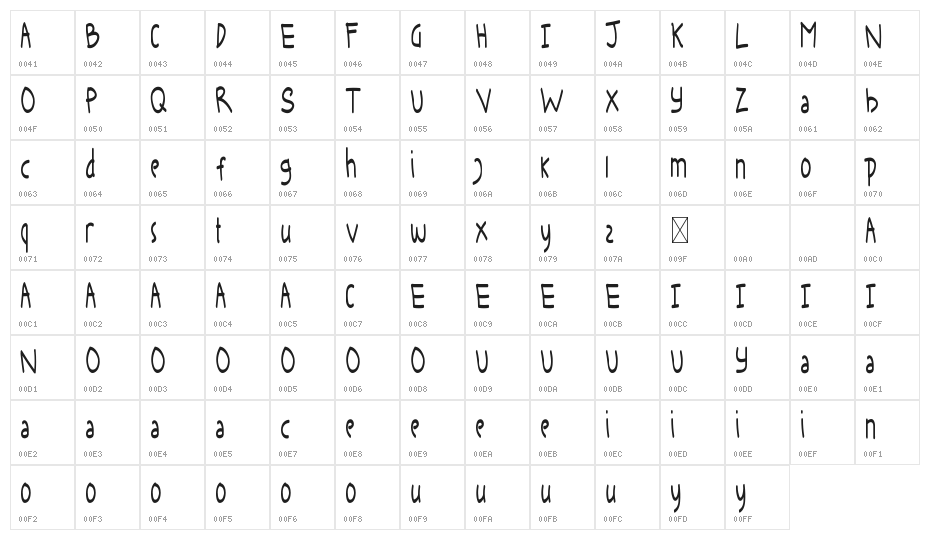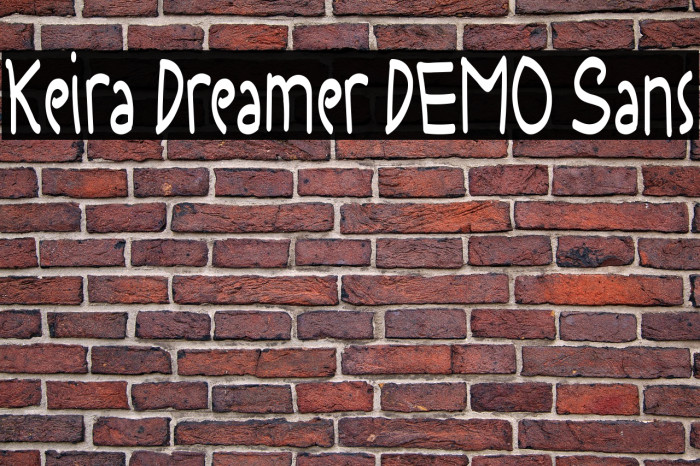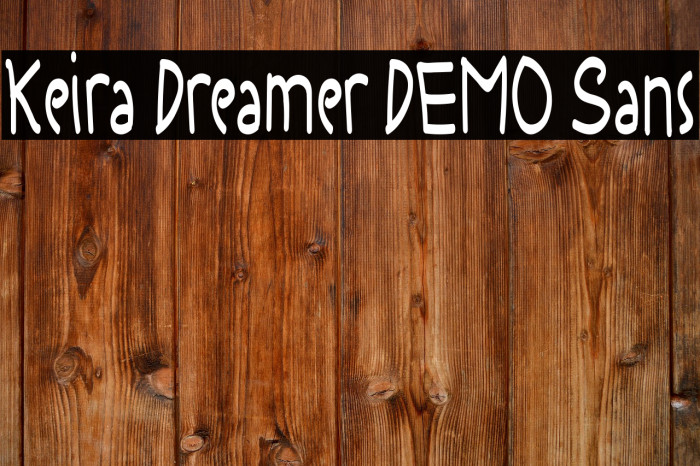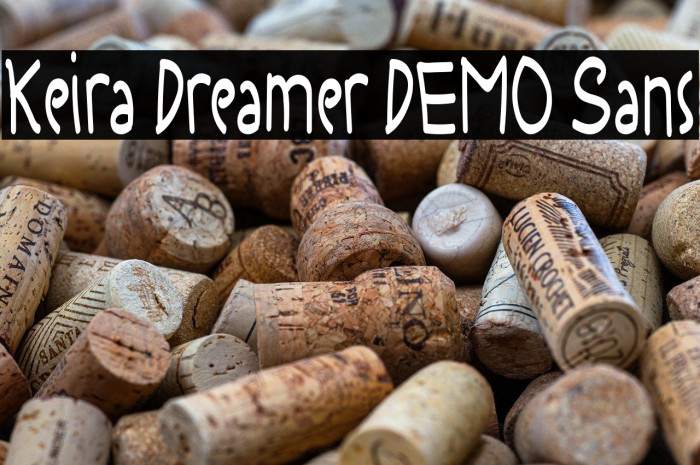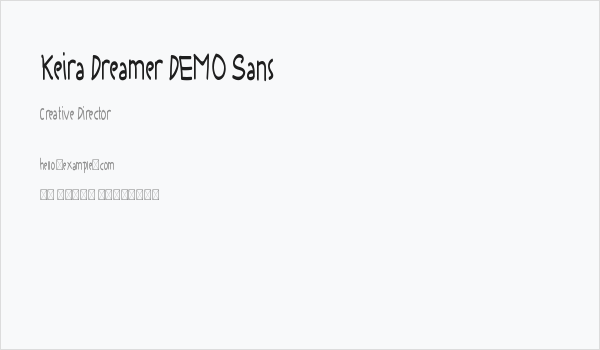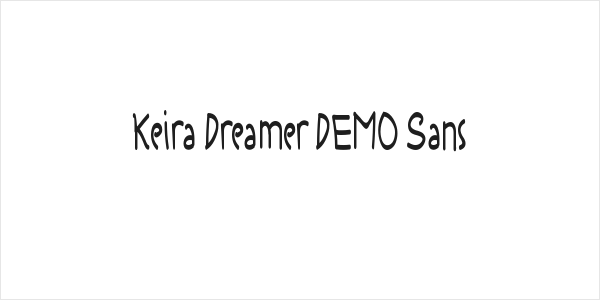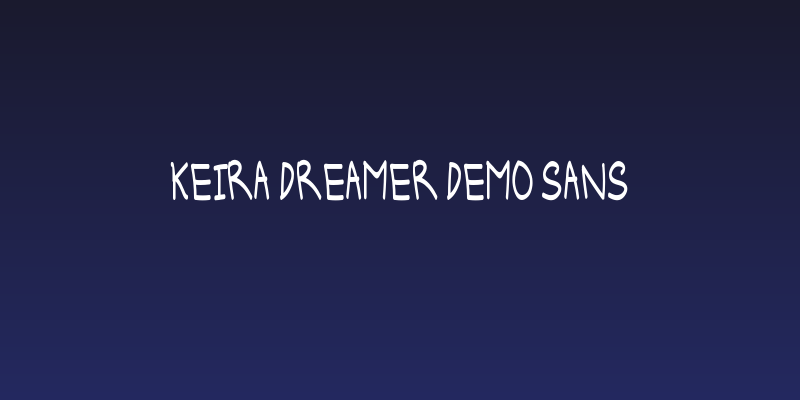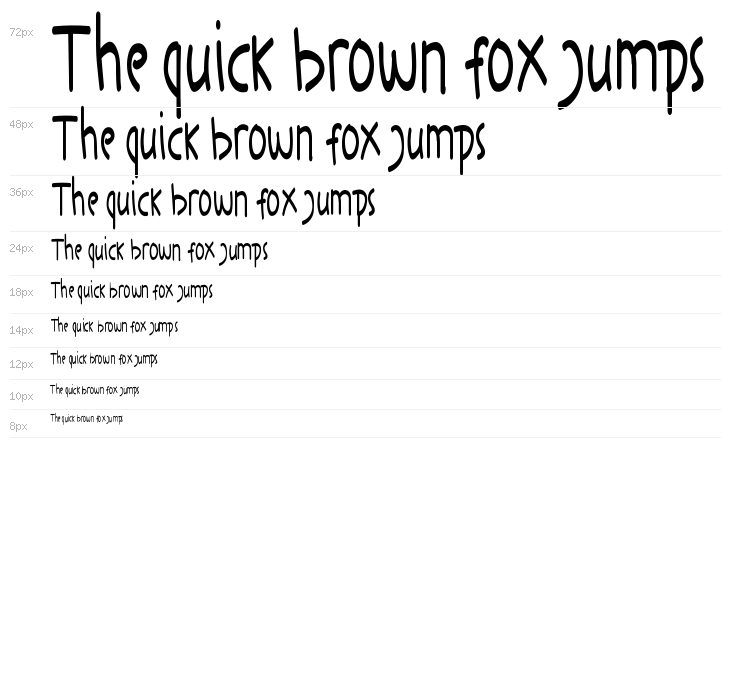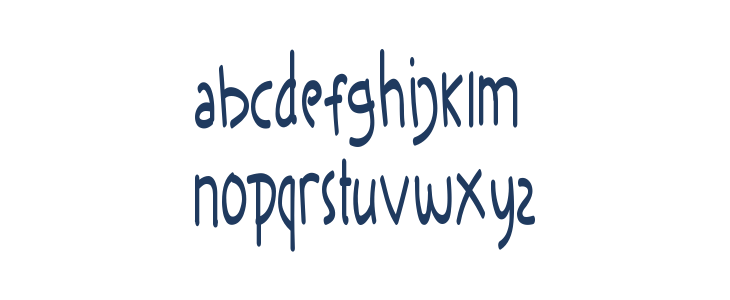
Keira Dreamer DEMO Sans Font
Keira Dreamer DEMO Sans Description
This font features a playful and informal design, characterized by its hand-drawn appearance. The letters are slightly irregular, adding a whimsical touch that conveys a sense of creativity and approachability. The strokes are consistent in thickness, providing a uniform look despite the casual style. The rounded edges and slight slant of the characters contribute to its friendly and inviting feel. This font is well-suited for projects that aim to communicate a relaxed and personal tone.
| Use Case | Headlines, Logos, Informal text |
| Proposed Projects | Ideal for children's books, casual invitations, greeting cards, and creative branding. |